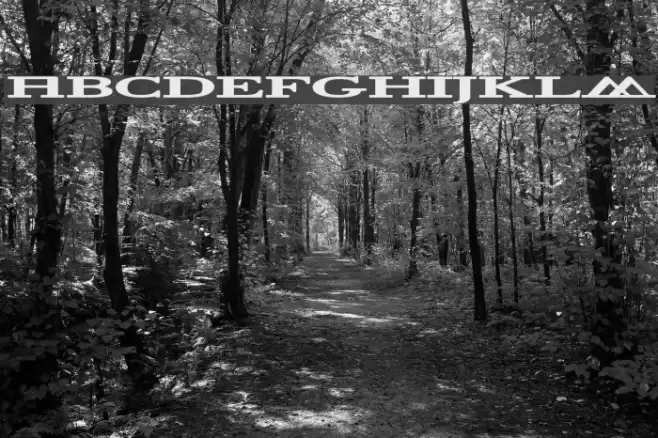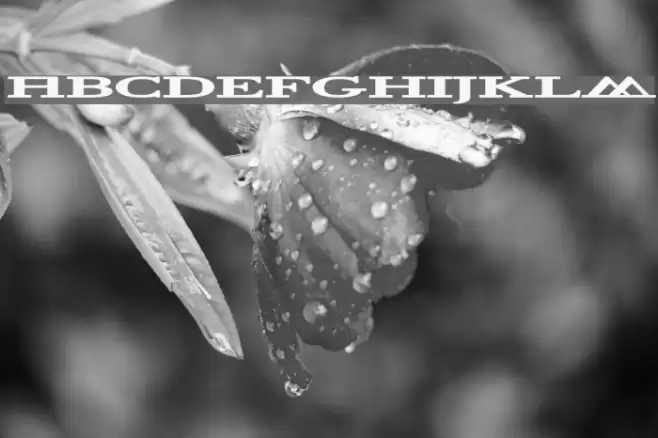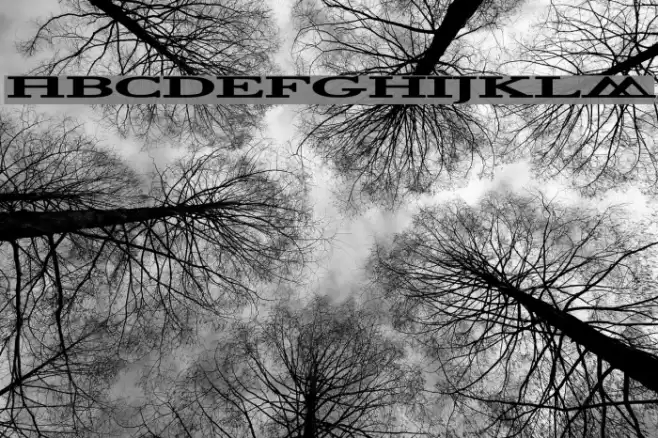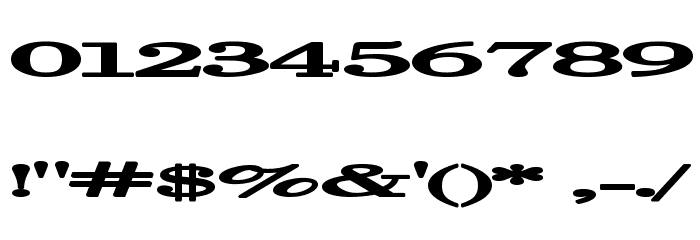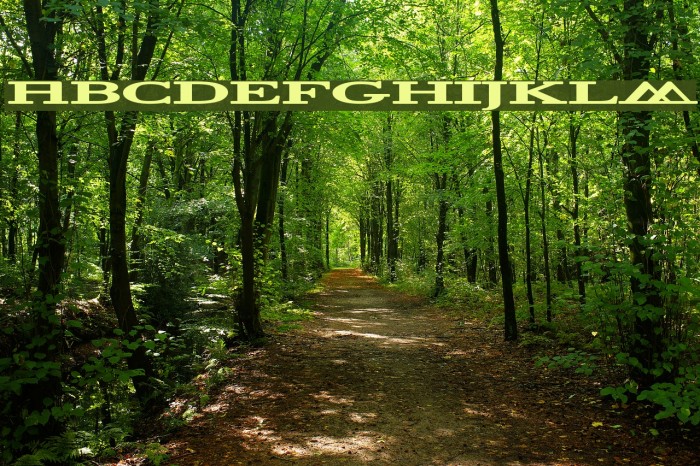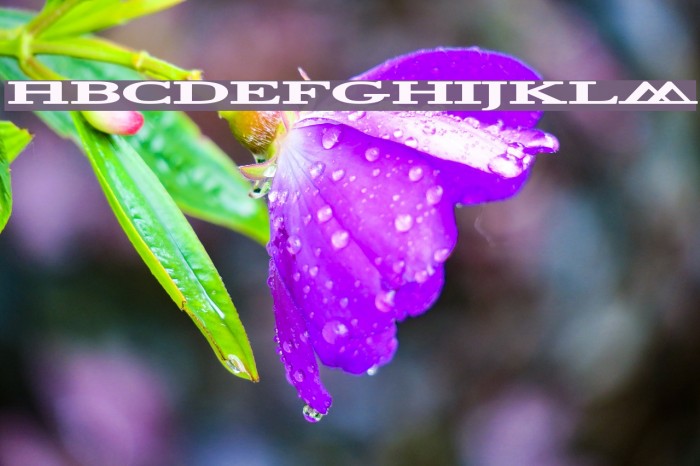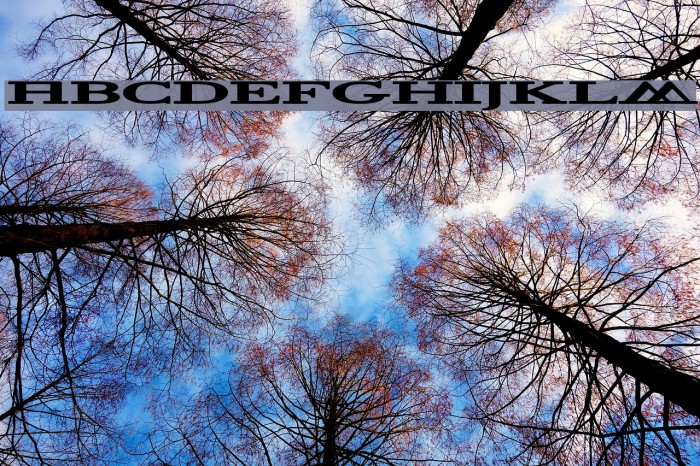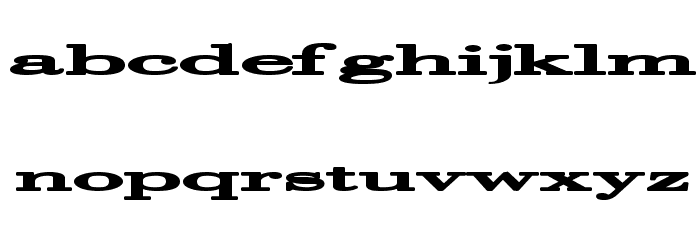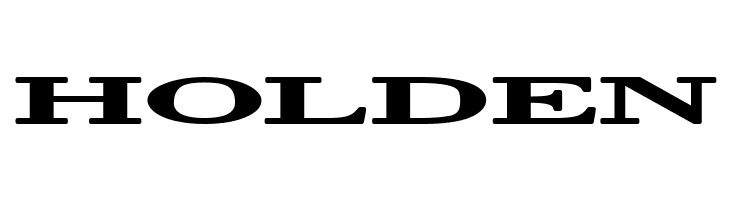
Halcyonia Font
Halcyonia Description
This font features a bold and impactful design with strong, thick strokes that convey a sense of authority and presence. The serifs are pronounced, adding a classic touch to the overall modern aesthetic. The uppercase letters are particularly striking, with a slight flare at the ends of the strokes, giving them a distinctive look. The lowercase letters maintain a consistent weight, ensuring readability while retaining the bold character of the font. Numbers are equally bold, making them stand out effectively. Special characters are well-integrated, maintaining the font's cohesive style.
A bold, serif font with strong strokes and a modern yet classic appeal from Serif fonts.
- Proposed Projects: Ideal for headlines, branding, posters, and any project requiring a strong visual impact.